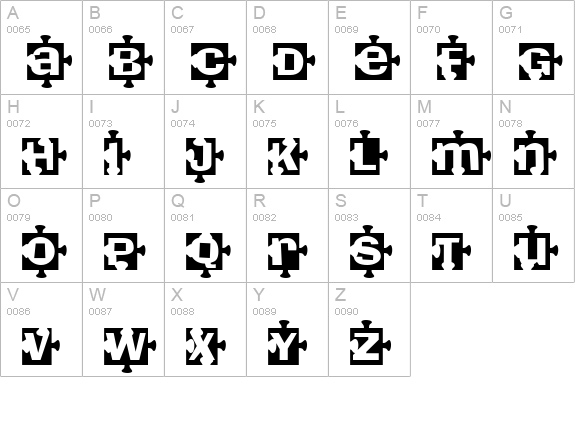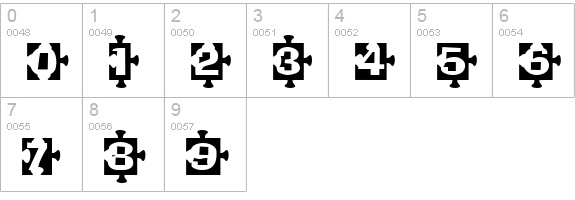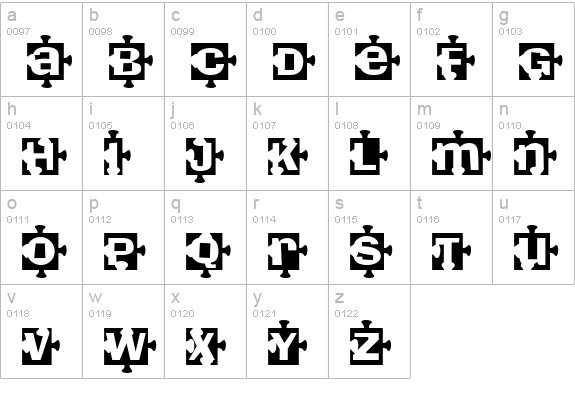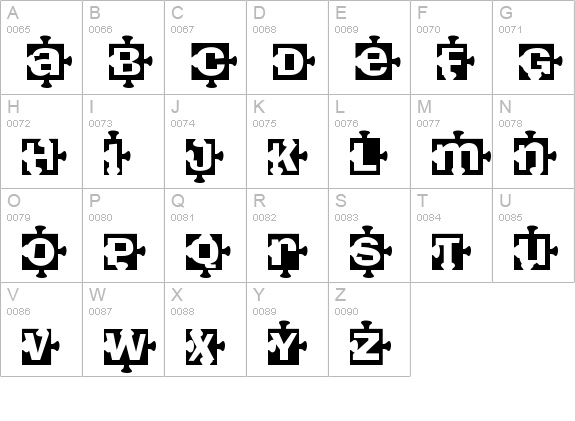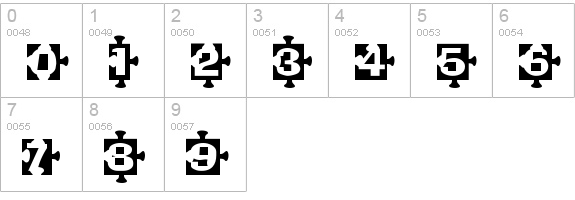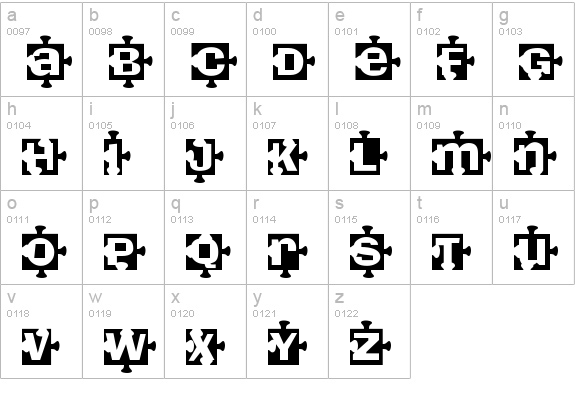
PiecesB Font Details
PiecesB font is a stunning display font that combines elegance with a touch of modernity. Its unique design features sharp edges and intricate details, making it perfect for adding a refined and sophisticated look to your projects. Whether you're designing a logo, poster, or website, PiecesB font will make your text stand out with its eye-catching style. The best part? PiecesB font is available for free download at FontsMarket.com. This means you can easily access this beautiful font and use it in your creative endeavors without any cost. Don't miss out on the opportunity to enhance your designs with the exquisite PiecesB font today!